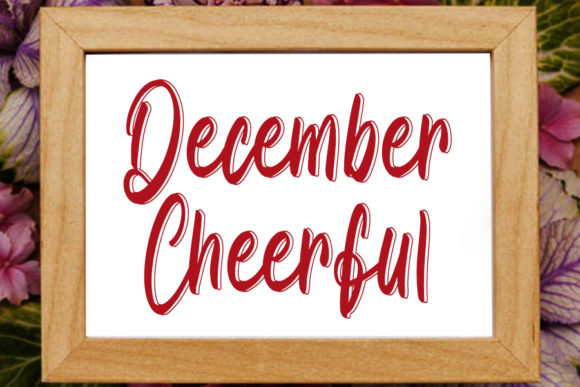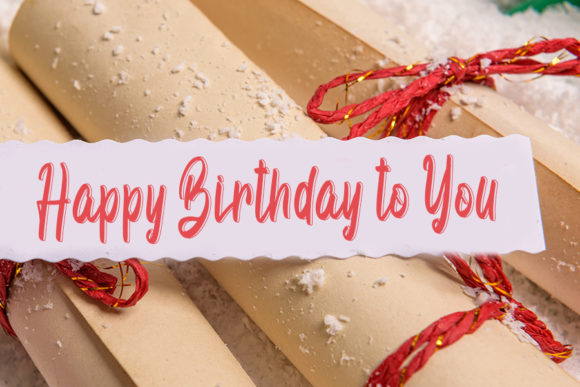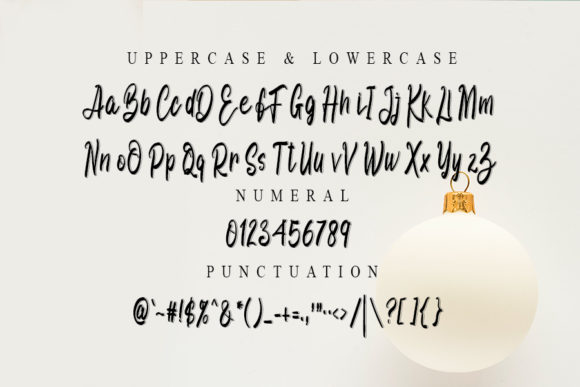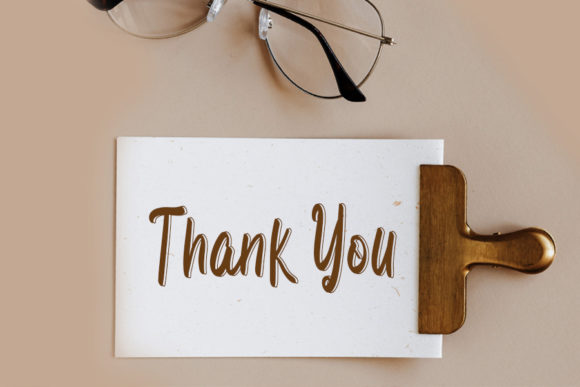
Introducing Christmas Creative Font: A Romantic and Sweet Handwritten Typeface
Are you looking for a font that exudes romance and sweetness? Look no further than Christmas Creative Font, a beautiful handwritten typeface that’s perfect for a variety of design projects. In this article, we’ll dive into the features and benefits of Christmas Creative Font, and explore how you can use it to add a touch of elegance and whimsy to your designs.
What is Christmas Creative Font?
Christmas Creative Font is a romantic and sweet handwritten typeface with characters that dance along the baseline. Its unique and elegant design makes it perfect for a wide range of applications, from logos and wedding invitations to headings, t-shirts, letterhead, signage, labels, news, posters, badges, and more.
Key Features of Christmas Creative Font
- Handwritten style: Christmas Creative Font has a beautiful, handwritten style that’s perfect for adding a personal touch to your designs.
- Unique character design: The font features characters that dance along the baseline, giving it a playful and whimsical feel.
- Romantic and sweet: The font’s elegant design makes it perfect for romantic occasions like weddings and anniversaries.
- Versatile: Christmas Creative Font can be used for a wide range of applications, from logos and headings to t-shirts and posters.
Benefits of Using Christmas Creative Font
So why choose Christmas Creative Font for your design projects? Here are just a few benefits of using this beautiful font:
- Adds a personal touch: The handwritten style of Christmas Creative Font adds a personal touch to your designs, making them more relatable and engaging.
- Creates a romantic feel: The font’s elegant design makes it perfect for creating romantic and sweet designs that are perfect for weddings, anniversaries, and other special occasions.
- Stand out from the crowd: With its unique character design, Christmas Creative Font is sure to make your designs stand out from the crowd.
How to Use Christmas Creative Font
Christmas Creative Font is perfect for a wide range of design projects. Here are just a few ideas to get you started:
- Wedding invitations: Use Christmas Creative Font to create beautiful and romantic wedding invitations that will set the tone for the big day.
- Logos: The font’s unique design makes it perfect for creating logos that are both elegant and memorable.
- Headings and titles: Use Christmas Creative Font to add a touch of elegance and whimsy to your headings and titles.
- T-shirts and apparel: The font’s playful design makes it perfect for creating fun and stylish t-shirts and apparel.
- Posters and signage: Use Christmas Creative Font to create eye-catching posters and signage that will grab attention.
Tips and Tricks for Using Christmas Creative Font
Here are a few tips and tricks to help you get the most out of Christmas Creative Font:
- Experiment with different colors: The font’s elegant design looks great in a variety of colors, so don’t be afraid to experiment and find the perfect color for your design.
- Use it with other fonts: Christmas Creative Font pairs well with other fonts, so try using it with a bold font for headings and a clean font for body text.
- Pay attention to spacing: Make sure to pay attention to spacing when using Christmas Creative Font, as the characters can be quite playful and may need a bit more room to breathe.
Christmas Creative Font is a beautiful and versatile handwritten typeface that’s perfect for a wide range of design projects. Its unique character design, romantic and sweet style, and ease of use make it a must-have for designers and crafters. Whether you’re creating wedding invitations, logos, headings, or posters, Christmas Creative Font is sure to add a touch of elegance and whimsy to your designs.